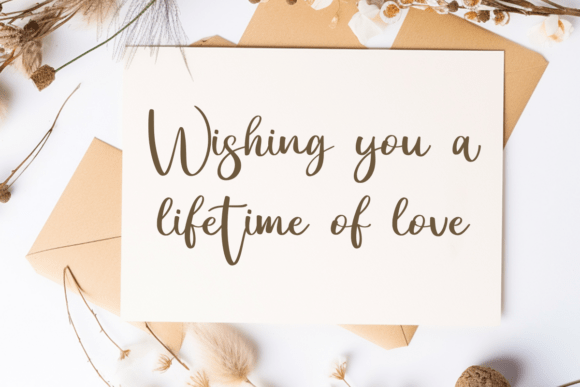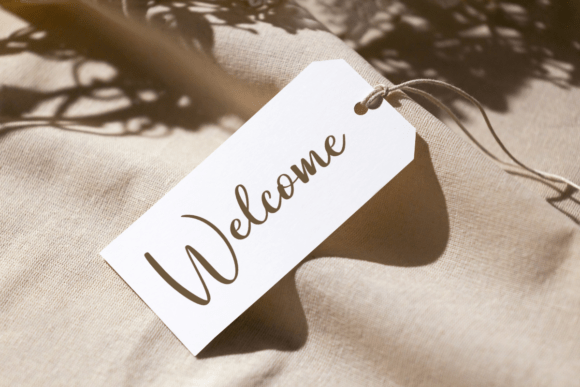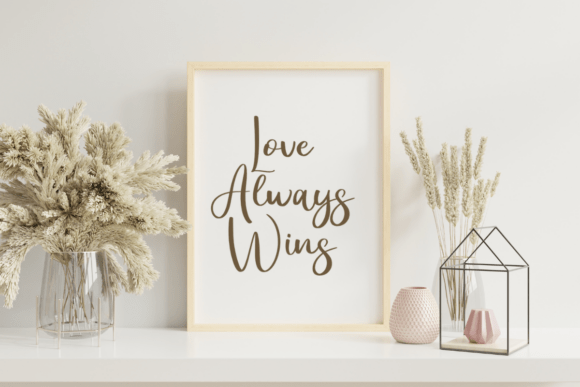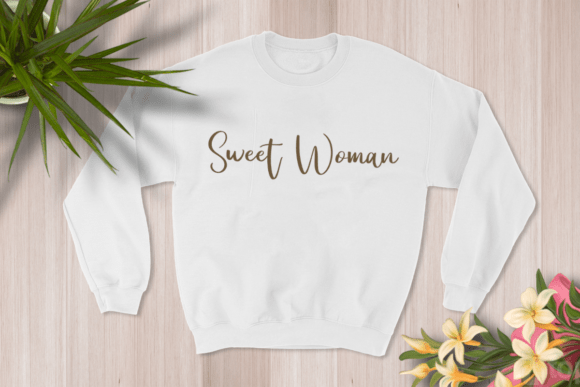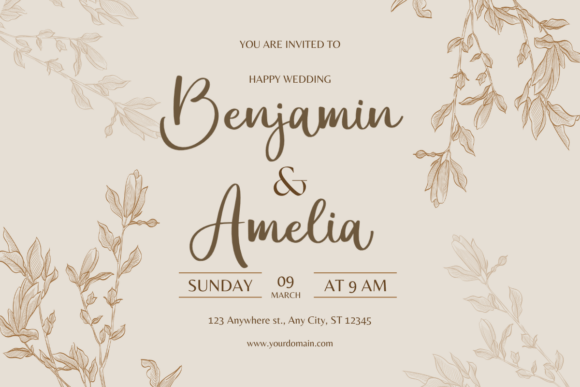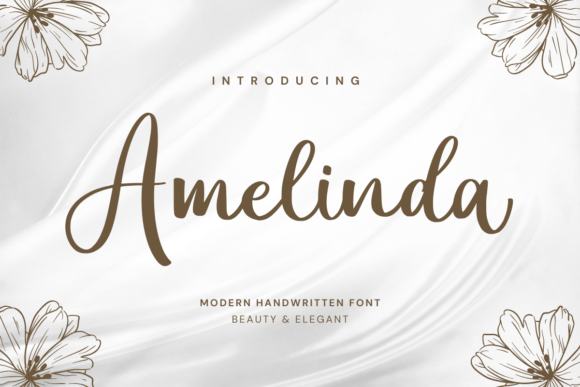
Introducing Amelinda Font: Elevate Your Designs with Elegance and Simplicity
In the world of typography, fonts play a crucial role in conveying the tone and personality of a design. For those seeking a modern, elegant, and simple handwritten font, Amelinda is an excellent choice. This beautiful font seamlessly blends sophistication with a soft, feminine touch, making it perfect for a variety of design projects.
The Characteristics of Amelinda Font
Amelinda is a modern handwritten font that boasts smooth curves and a stylish flow. Its unique characteristics make it an ideal choice for designs that require a graceful and contemporary touch. The font’s soft and feminine aesthetic brings a sense of beauty and charm to any project, making it a versatile choice for various applications.
Ideal Uses for Amelinda Font
Amelinda’s versatility makes it suitable for a wide range of design projects. Some of the ideal uses for this beautiful font include:
- Wedding Stationery: Amelinda’s elegant and sophisticated feel makes it perfect for wedding invitations, save-the-date cards, and other wedding-related designs.
- Fashion Branding: The font’s modern and stylish aesthetic makes it an excellent choice for fashion brands looking to create a luxurious and high-end image.
- Social Media Graphics: Amelinda’s playful and feminine touch makes it ideal for social media graphics, such as Instagram posts, Facebook covers, and Twitter headers.
- Logos: The font’s simplicity and elegance make it a great choice for logos, particularly for businesses that want to convey a sense of sophistication and style.
Why Choose Amelinda Font?
With so many fonts available, why choose Amelinda? Here are a few reasons why designers and crafters love this beautiful font:
- Unique and Versatile: Amelinda’s unique blend of elegance and simplicity makes it a versatile choice for various design projects.
- Ease of Use: The font is easy to read and works well in both digital and print formats.
- Customizable: Amelinda can be easily customized to fit your design needs, making it a great choice for designers who want to create unique and personalized designs.
Tips for Using Amelinda Font
To get the most out of Amelinda font, here are a few tips to keep in mind:
- Pair with Other Fonts: Amelinda pairs well with other fonts, particularly sans-serif fonts. Experiment with different font combinations to create a unique and visually appealing design.
- Use in Headings and Titles: Amelinda is perfect for headings and titles, where its elegant and sophisticated feel can shine.
- Experiment with Colors: The font works well with a variety of colors, from soft pastels to bold and bright hues. Experiment with different color combinations to find the perfect fit for your design.
Amelinda font is a beautiful and versatile choice for designers and crafters looking to add a touch of elegance and simplicity to their designs. With its smooth curves, stylish flow, and soft feminine aesthetic, Amelinda is perfect for a wide range of design projects, from wedding stationery to fashion branding. Whether you’re a seasoned designer or just starting out, Amelinda is a great addition to your font collection.